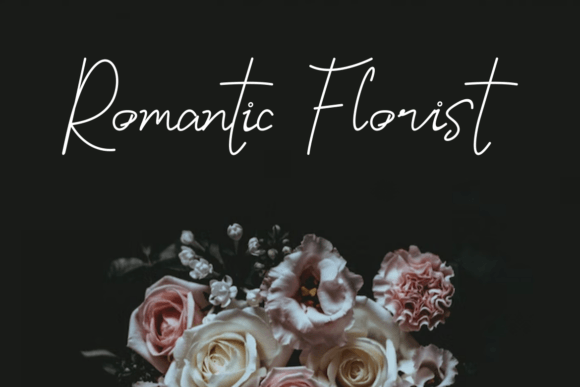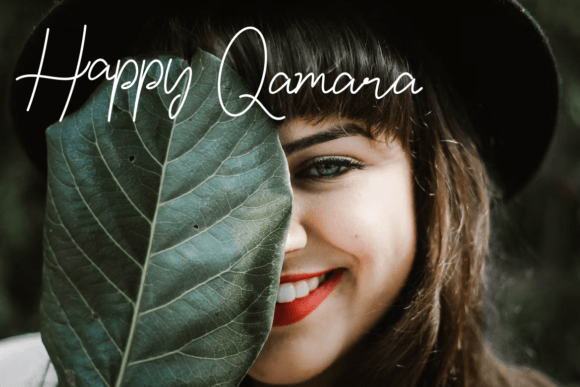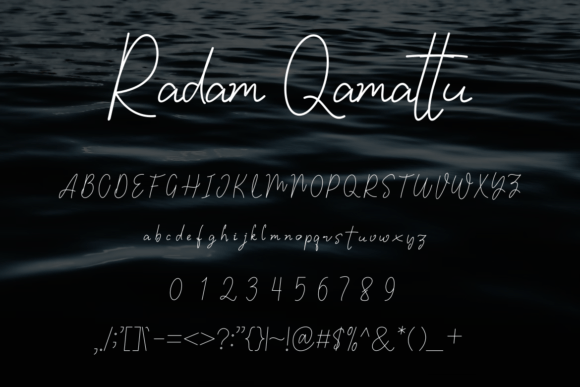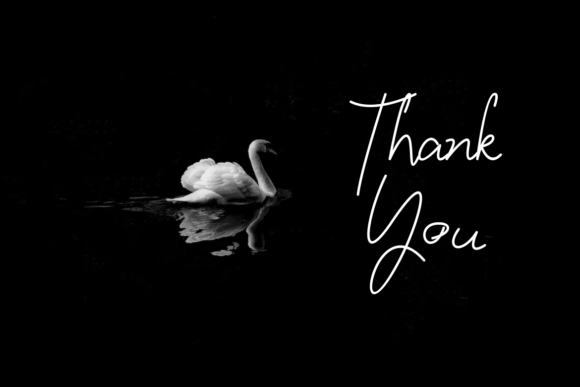
Introduction to Radam Qamattu Font
Have you ever been stuck on a creative project, searching for the perfect font to convey the emotions you want to express? The moment of truth arrives when you finally stumble upon a design resource that makes your vision come alive. For designers, finding that perfect font can be a game-changer. It’s what sets your work apart and makes it truly special.
One such treasure is the Radam Qamattu Font, a romantic and sweet calligraphy typeface that will leave your audience swooning. Its characters dance along the baseline with a casual, yet elegant touch, making it perfect for any creative project that requires a high-quality, transparent background design. Whether you’re working on a wedding invitation, a blog post, or a social media campaign, this font is sure to elevate your design to the next level.
Key Features of Radam Qamattu Font
- High-quality, unique font design ideal for creative projects
- Transparency feature allows for easy customization of backgrounds
- Font size: 2,400 characters, including uppercase and lowercase letters, numbers, and special characters
- Resolution: High-resolution design suitable for printing and digital use
- Perfect for designers looking for a distinctive, creative font for their projects
Honest Review: Radam Qamattu Font
As a designer, I’m always on the lookout for high-quality design resources to elevate my creative projects. The Radam Qamattu Font caught my attention with its unique, bold design.
- ✨ Unique and bold design that adds a touch of sophistication to any project.
- ✨ High-quality font that’s perfect for creative projects that require a statement piece.
- ⚠️ Limited font sizes and styles available, which may limit its versatility in certain projects.
- ⚠️ May not be suitable for projects that require a transparent background, as the font’s design may not translate well.
Overall, I’m impressed with the Radam Qamattu Font and would recommend it for creative projects that require a bold, statement font. While it may have some limitations, its unique design and high-quality make it a valuable addition to any designer’s resource library.
Tips for Getting the Most Out of Radam Qamattu Font
For optimal results, use Radam Qamattu Font in conjunction with a high-quality image or background. Experiment with different font sizes and colors to create a visually appealing design.
Common Use Cases for Radam Qamattu Font
Radam Qamattu Font is ideal for creative projects requiring a unique, high-quality font. Common use cases include:
Graphic design projects
Logo design
Print materials
Digital media